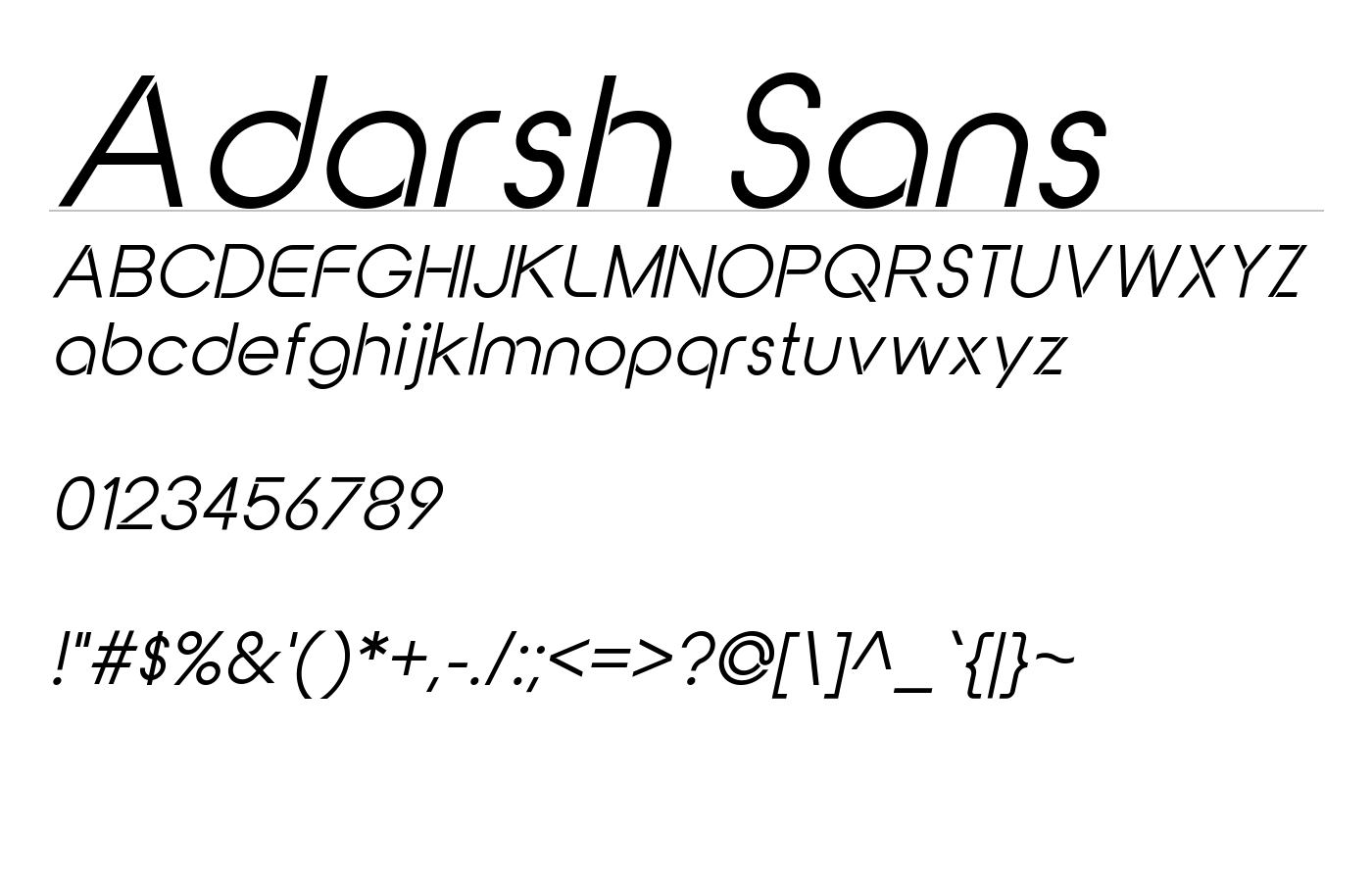
Adarsh Sans is a sleek, modern sans serif font featuring a light weight and condensed width with elegant, slightly slanted letterforms that create a dynamic and contemporary feel. Its clean, geometric strokes combined with a high x-height and uniform contrast make it highly readable and ideal for stylish headlines, logos, and editorial use where a sophisticated, forward-looking impression is desired. This font works beautifully in branding and design projects that seek a refined yet approachable character.
Adarsh Sans Font